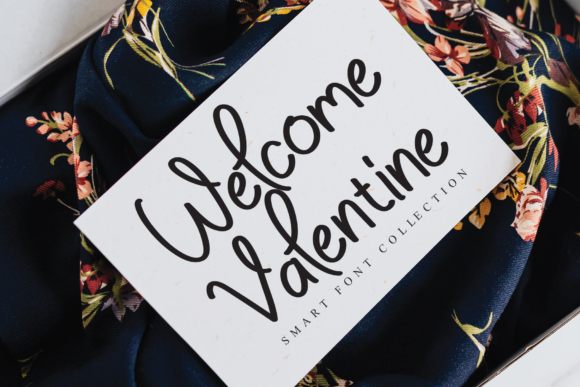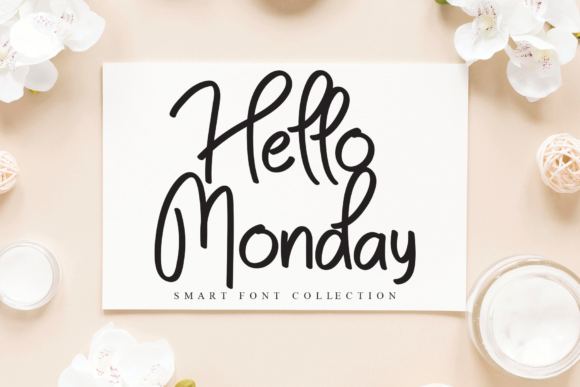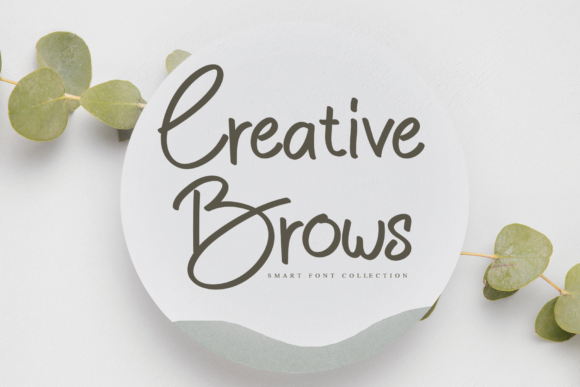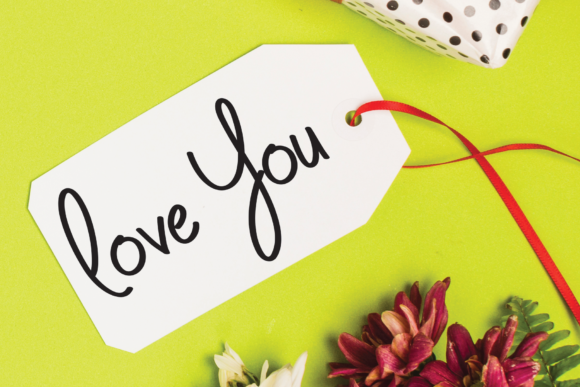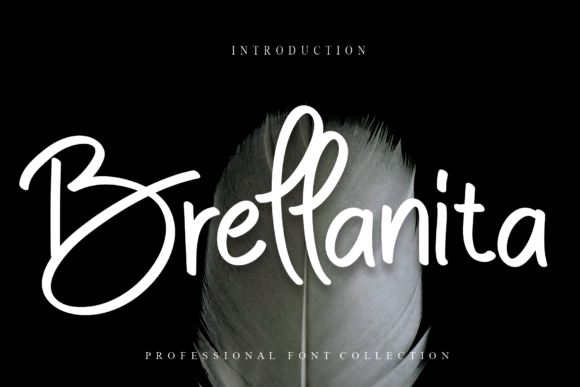
Brellanita Font: The Sweet and Versatile Handwritten Font for Your Creative Projects
Are you a designer, crafter, or DIY enthusiast looking for a font that can add a touch of warmth and personality to your projects? Look no further than Brellanita, a beautiful handwritten font that is sure to delight. In this article, we’ll take a closer look at the Brellanita font, its features, and how you can use it to bring your creative ideas to life.
What is Brellanita Font?
Brellanita is a sweet, all-round, and flexible handwritten font that is perfect for a wide range of creative projects. Its warm, romantic, and jolly personality makes it an ideal choice for designers and crafters who want to add a personal touch to their work. Whether you’re creating a logo, crafting a social media post, or designing a wedding invitation, Brellanita is the perfect font to turn your project ideas into real works of art.
Features of Brellanita Font
So, what makes Brellanita font so special? Here are some of its key features:
- Handwritten style: Brellanita has a beautiful, handwritten style that gives it a personal and unique touch.
- Warm and romantic: The font has a warm and romantic feel to it, making it perfect for projects that require a touch of elegance and sophistication.
- Flexible: Brellanita is a flexible font that can be used for a wide range of projects, from logos and branding to social media posts and invitations.
- Endless variations: With Brellanita, you can create endless variations of your project ideas, making it perfect for designers and crafters who like to experiment and try new things.
How to Use Brellanita Font
Using Brellanita font is easy and fun. Here are some ideas to get you started:
- Logos and branding: Use Brellanita to create a unique and memorable logo for your business or brand.
- Social media posts: Add a personal touch to your social media posts with Brellanita’s warm and romantic style.
- Invitations and announcements: Use Brellanita to create beautiful and elegant invitations and announcements for weddings, birthdays, and other special occasions.
- Crafting and DIY projects: Brellanita is perfect for crafting and DIY projects, such as making personalized cards, gift tags, and other handmade items.
Tips and Tricks for Getting the Most Out of Brellanita Font
Here are some tips and tricks to help you get the most out of Brellanita font:
- Experiment with different colors: Brellanita looks great in a variety of colors, so don’t be afraid to experiment and find the perfect color scheme for your project.
- Mix and match with other fonts: Brellanita can be paired with other fonts to create a unique and interesting look.
- Use it for headlines and body text: Brellanita is versatile enough to be used for both headlines and body text, making it perfect for a wide range of projects.
In conclusion, Brellanita font is a beautiful and versatile handwritten font that is perfect for designers, crafters, and DIY enthusiasts. Its warm, romantic, and jolly personality makes it an ideal choice for a wide range of creative projects. With its endless variations and flexible style, Brellanita is sure to become a favorite font in your collection. So why wait? Download Brellanita font today and start creating your own works of art!
Have fun with Brellanita and explore its endless variations. Get creative and make something beautiful with this amazing font!